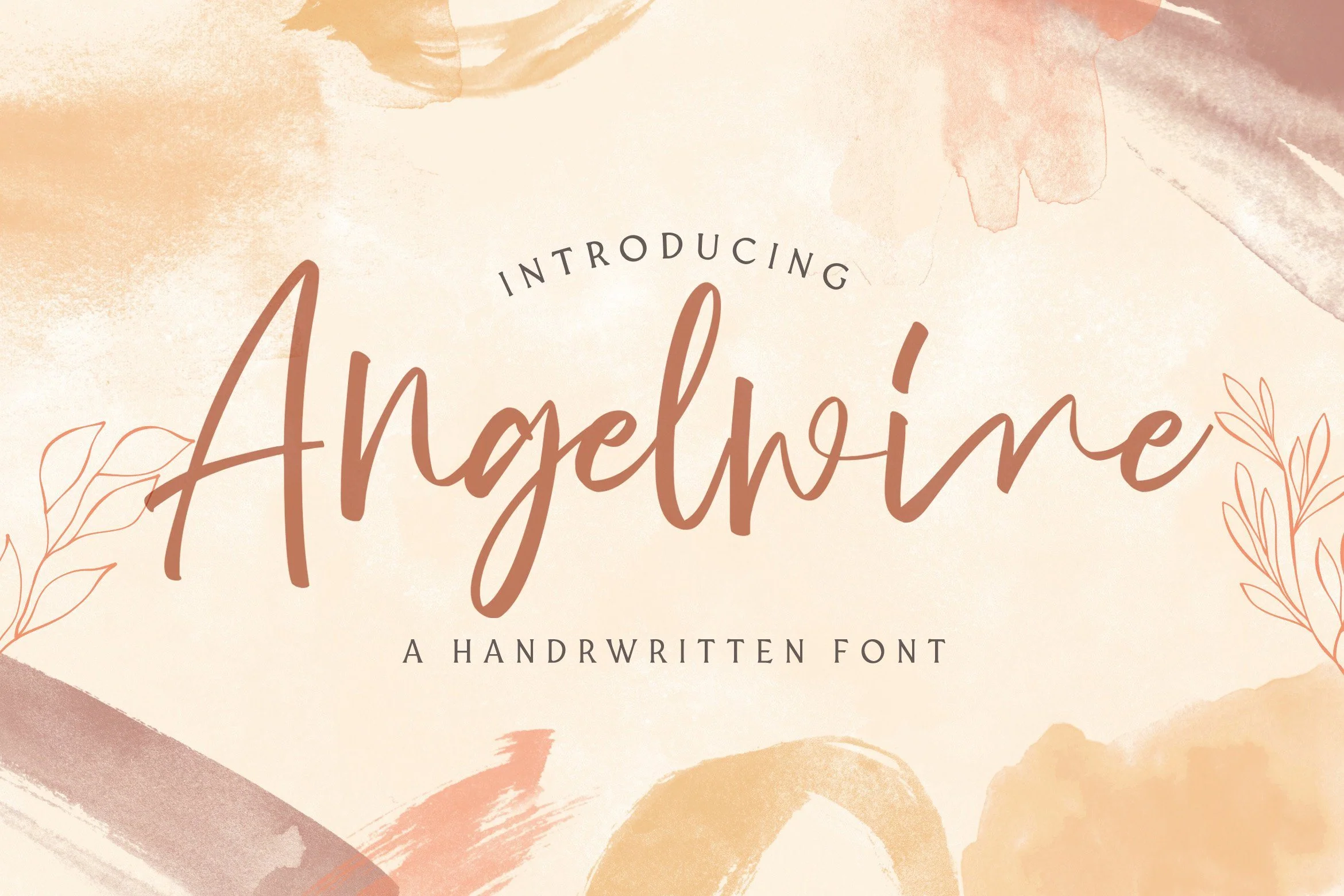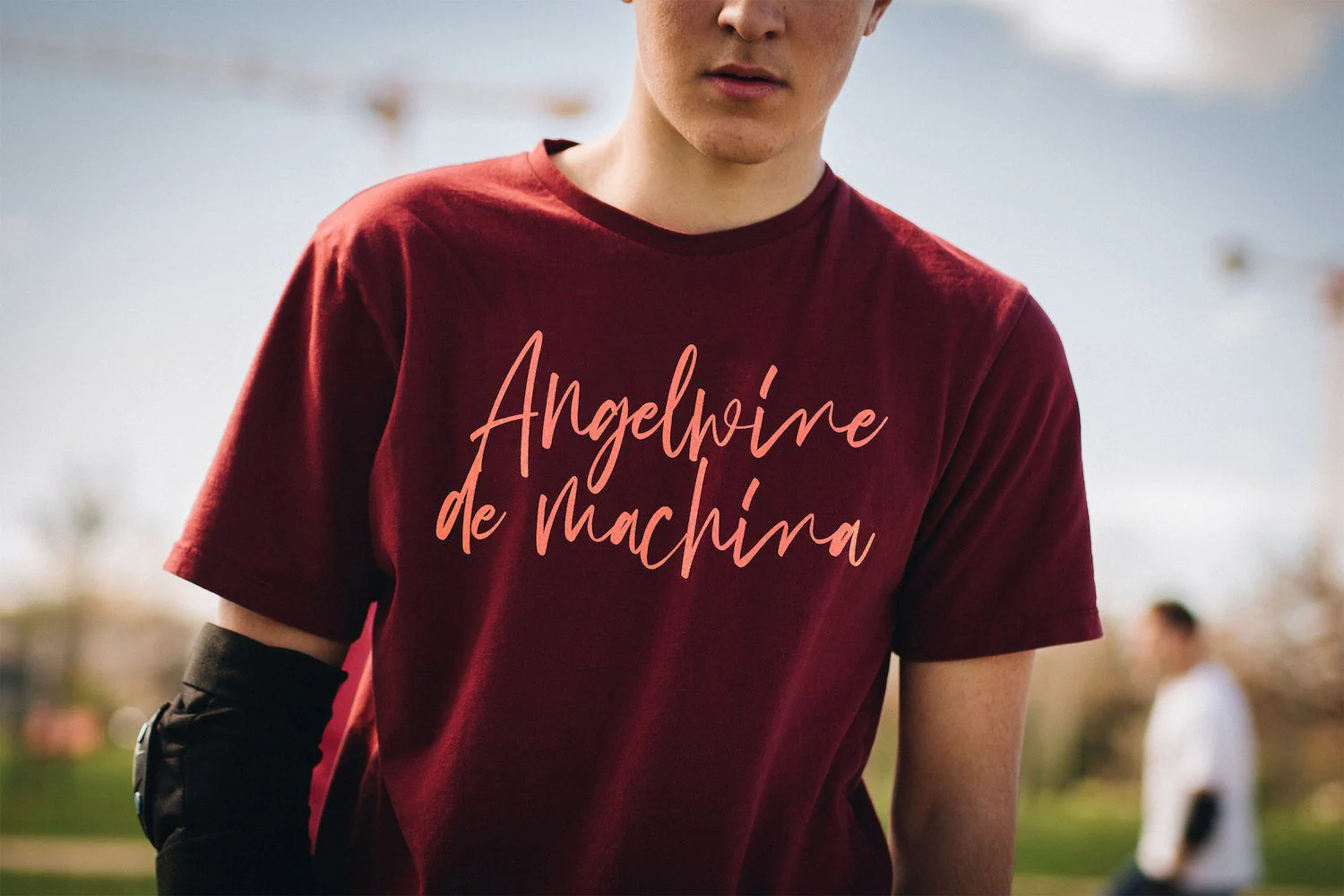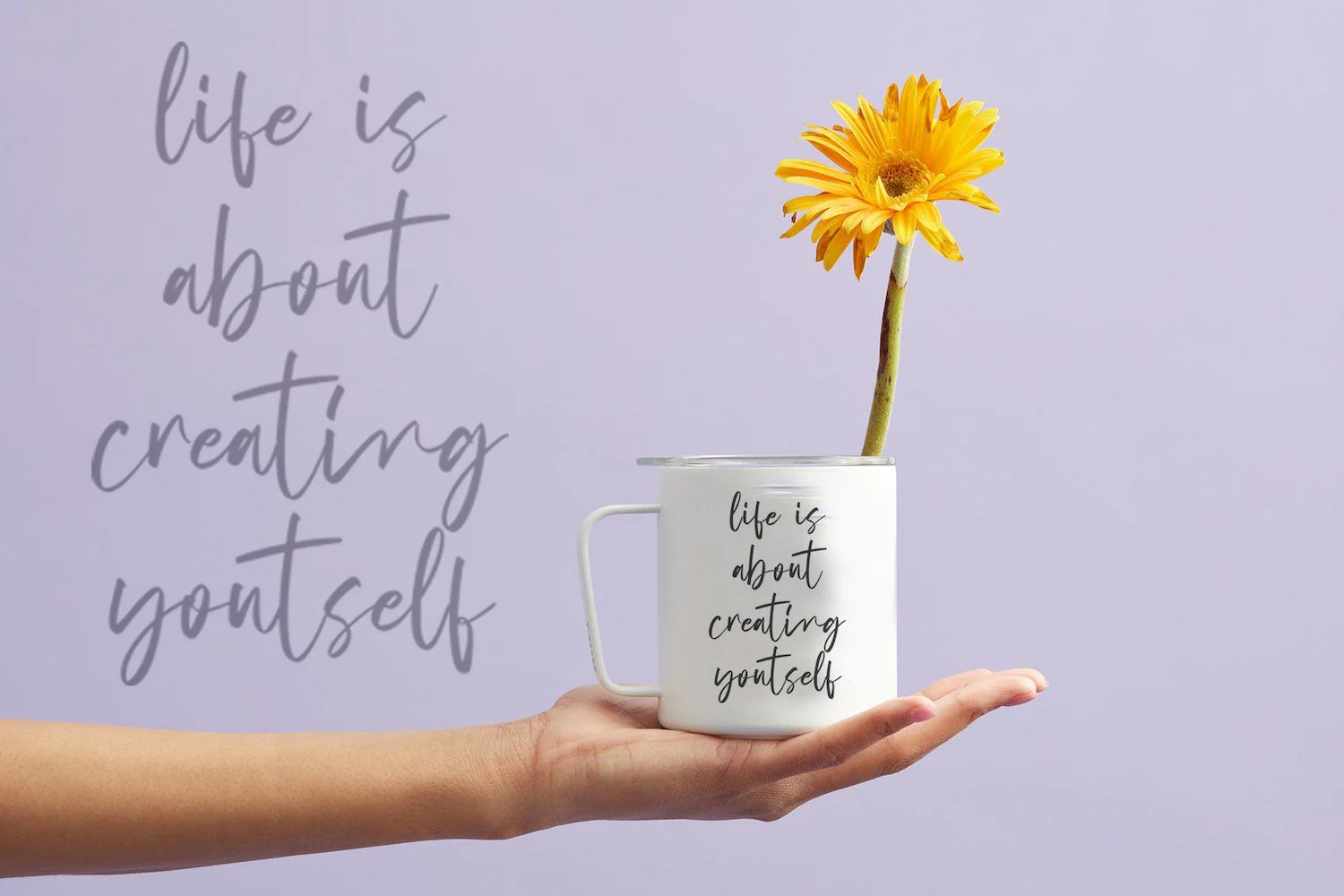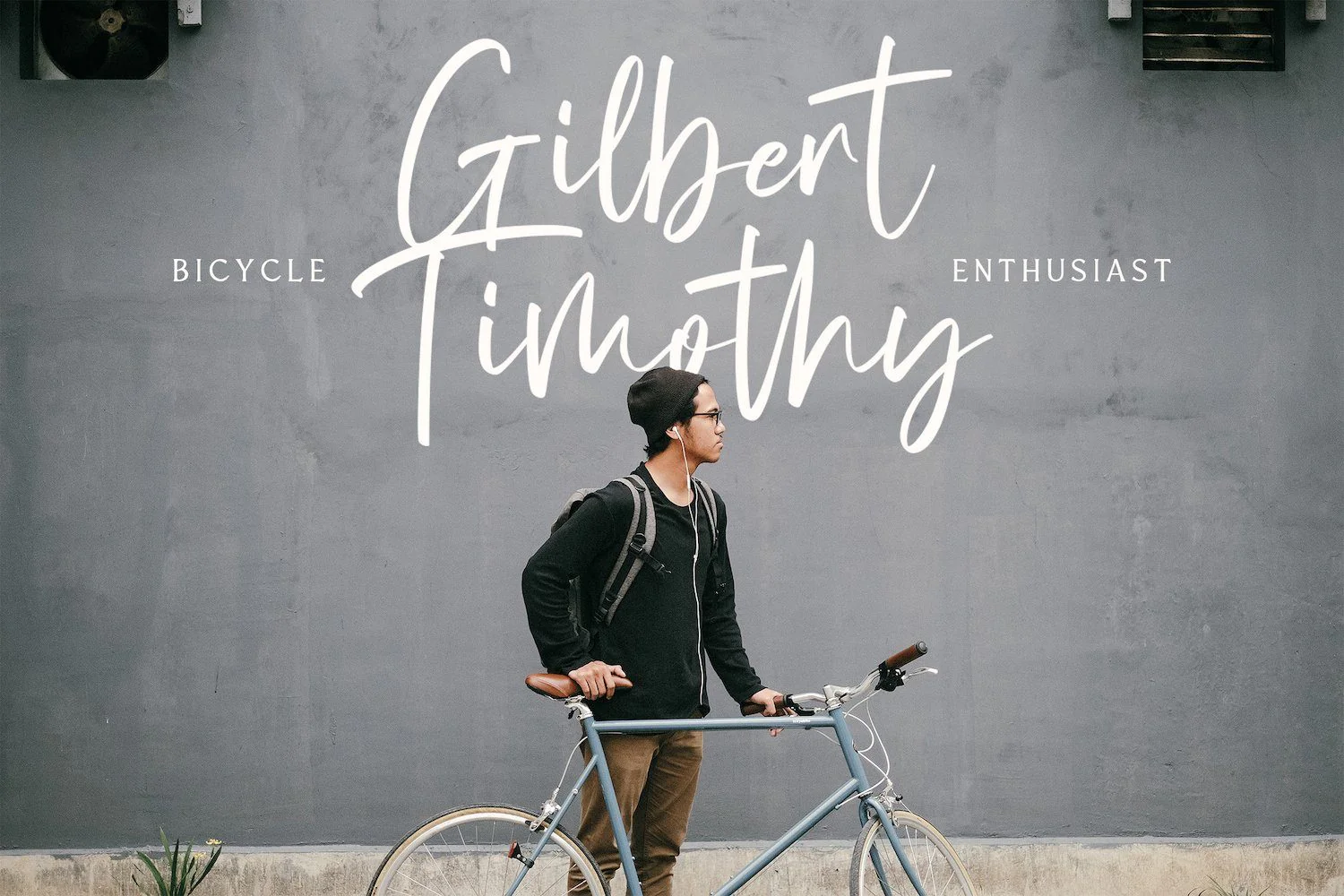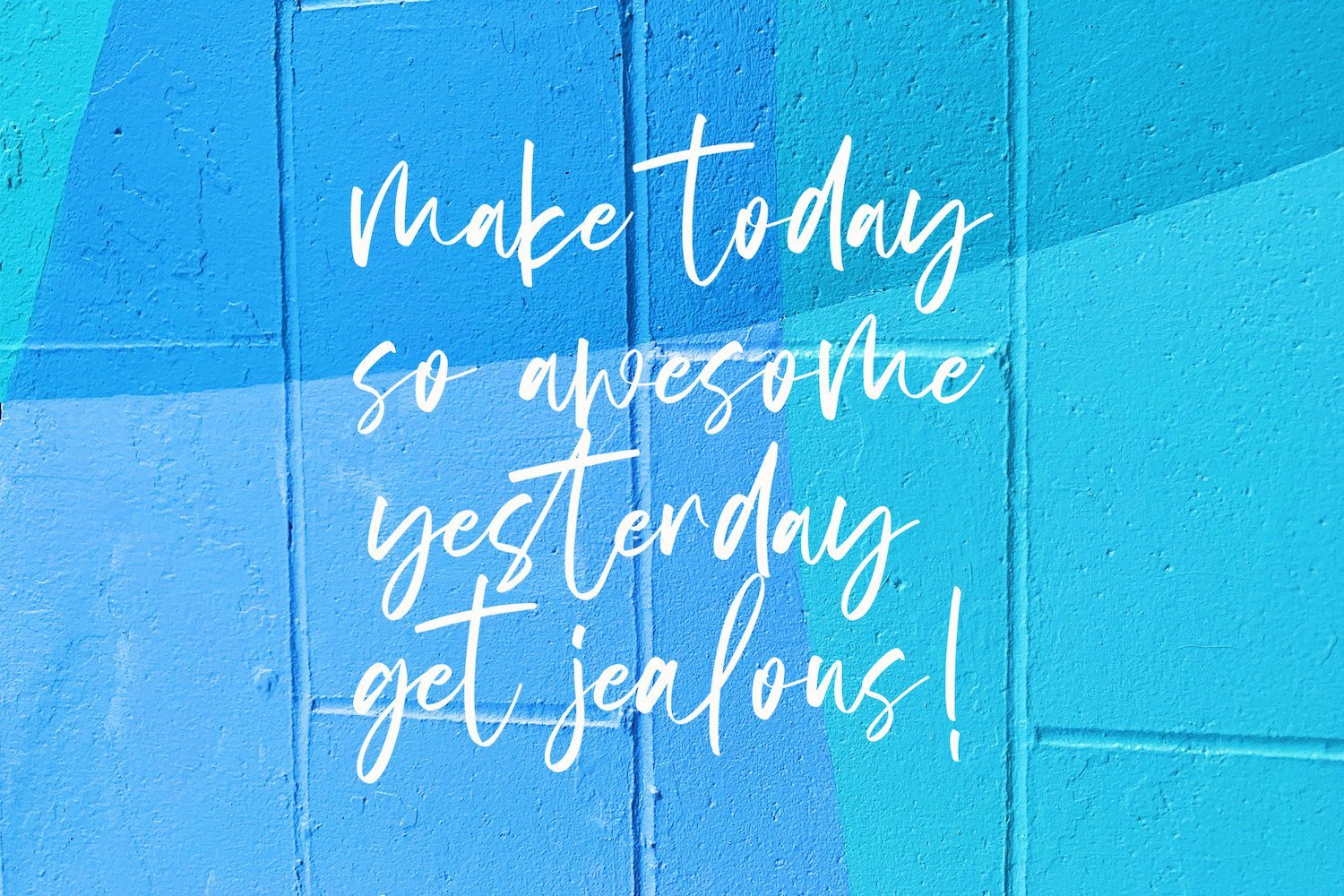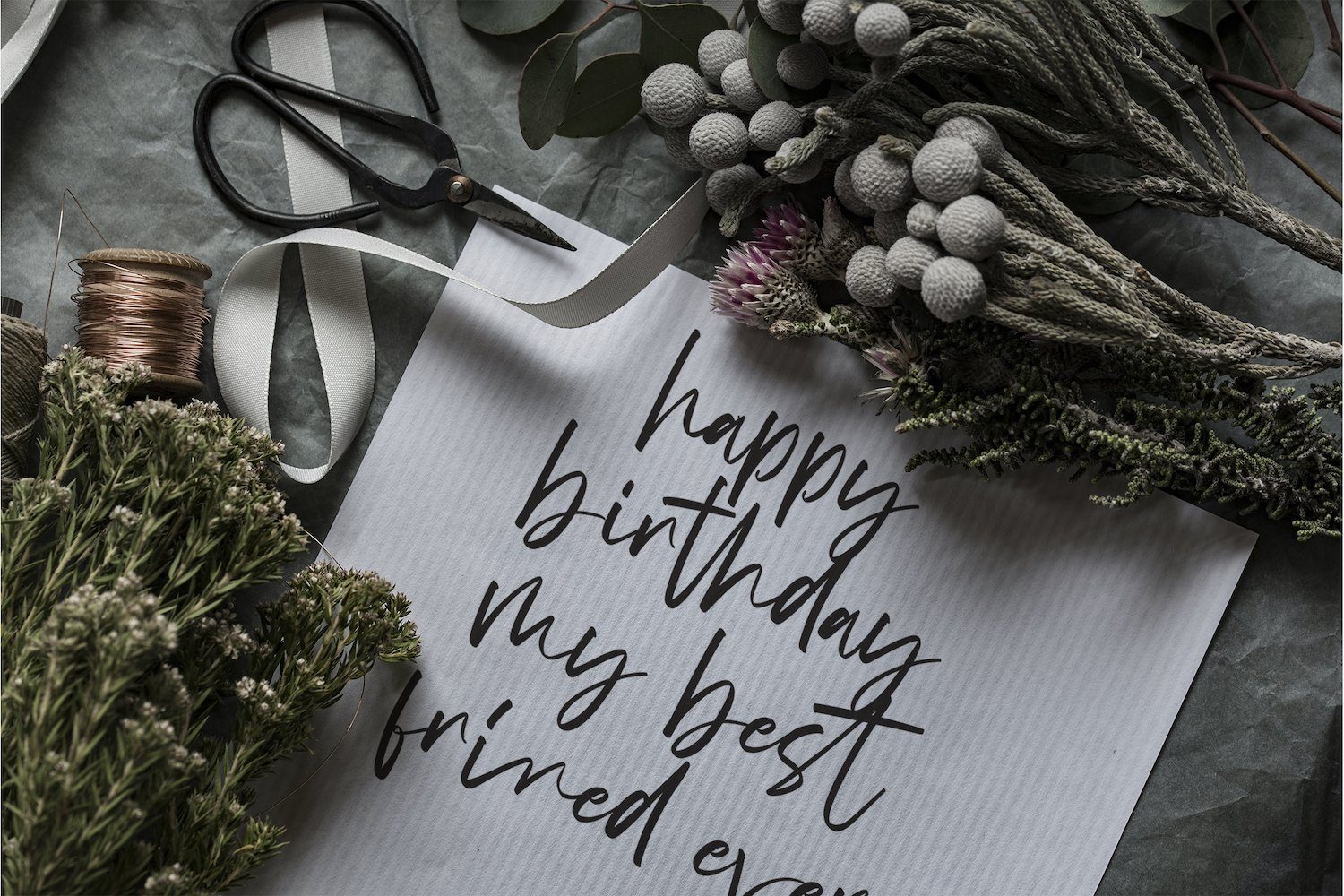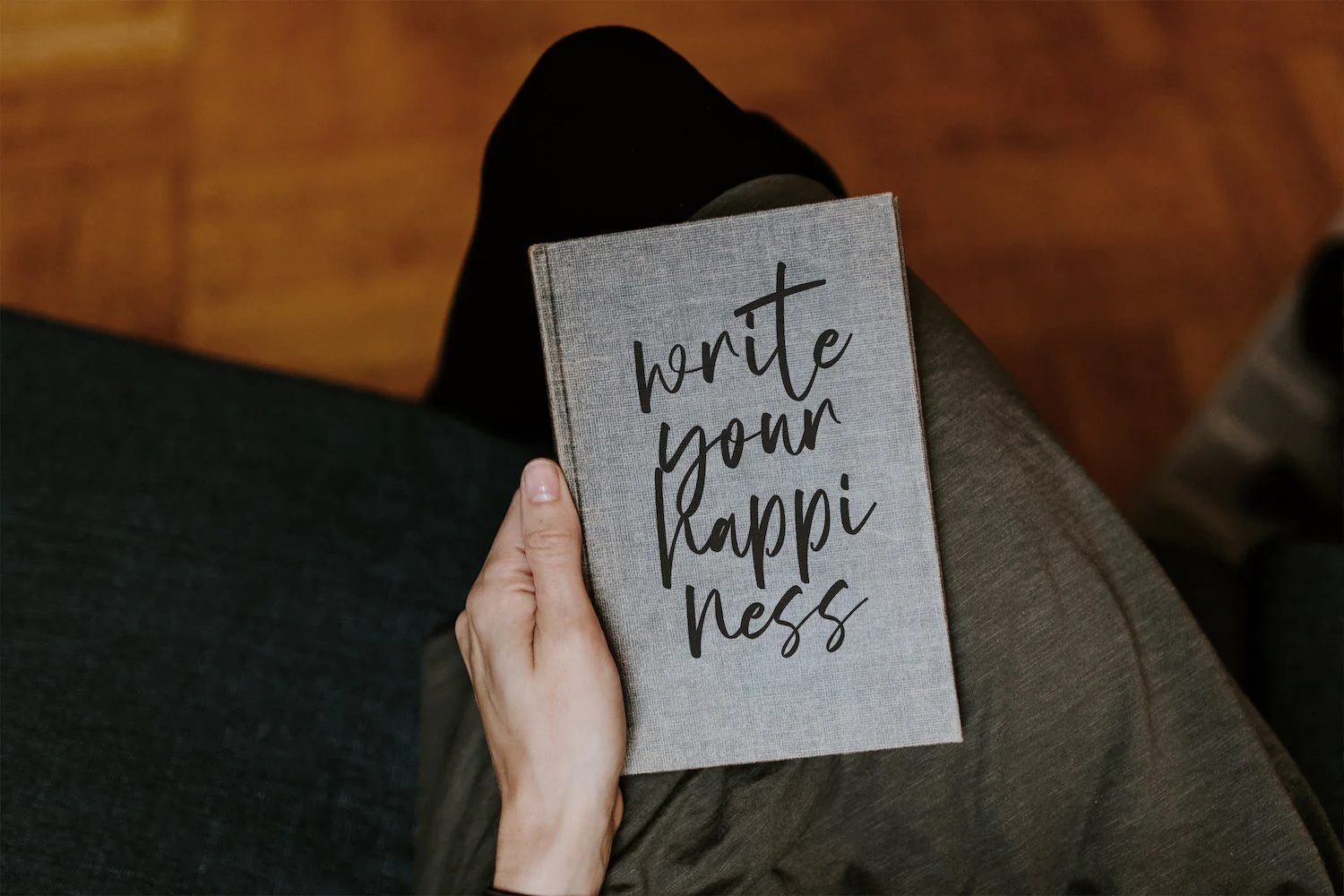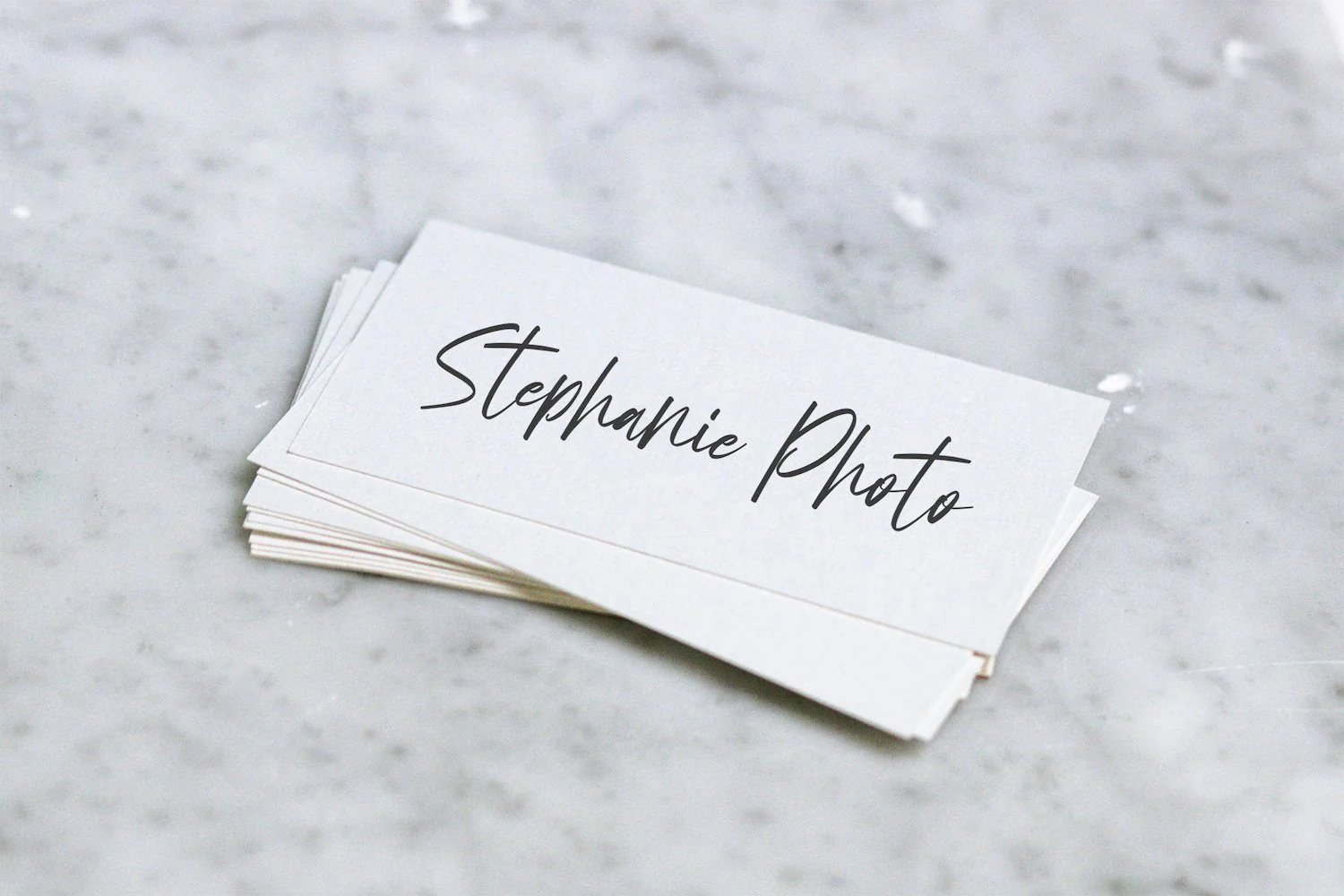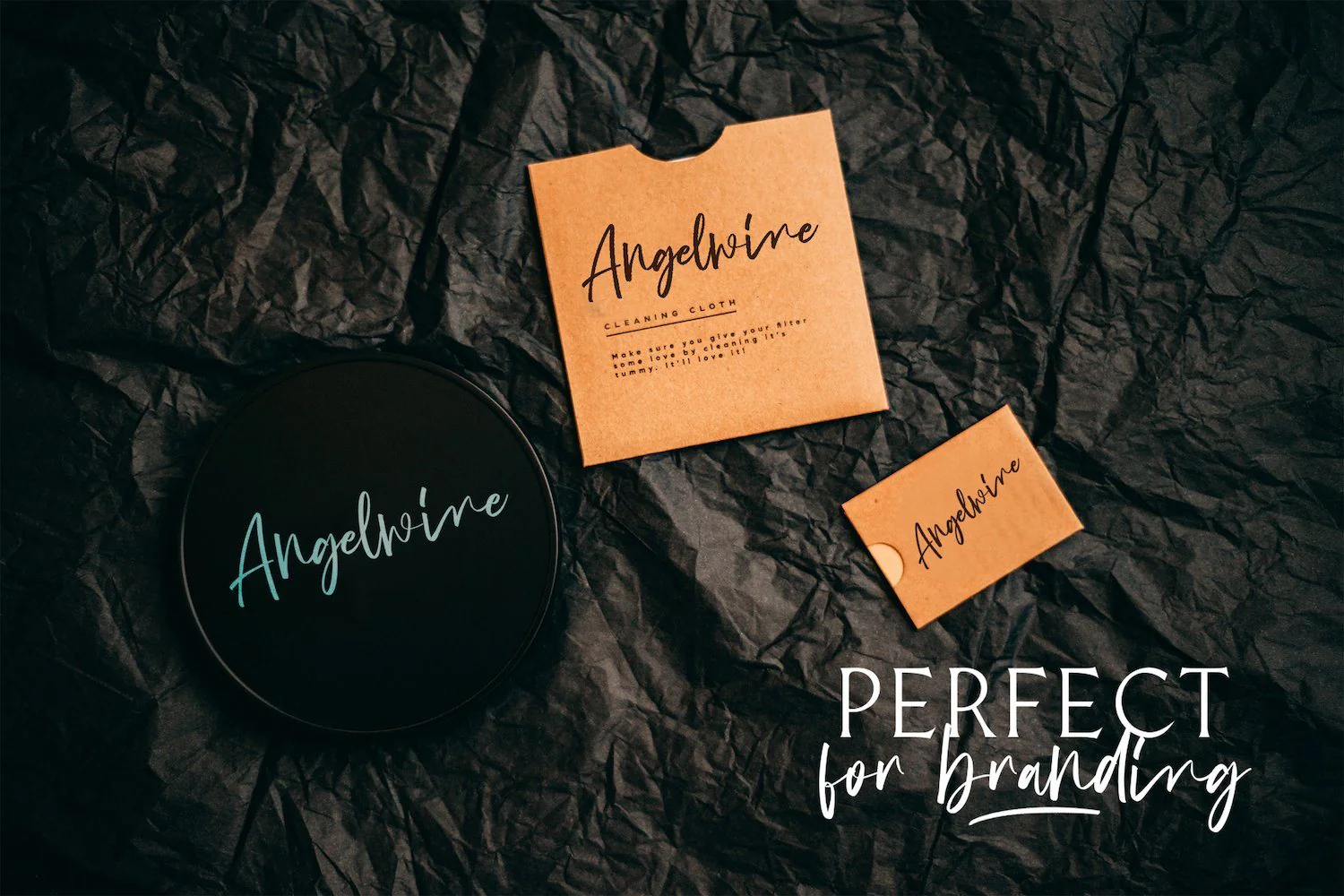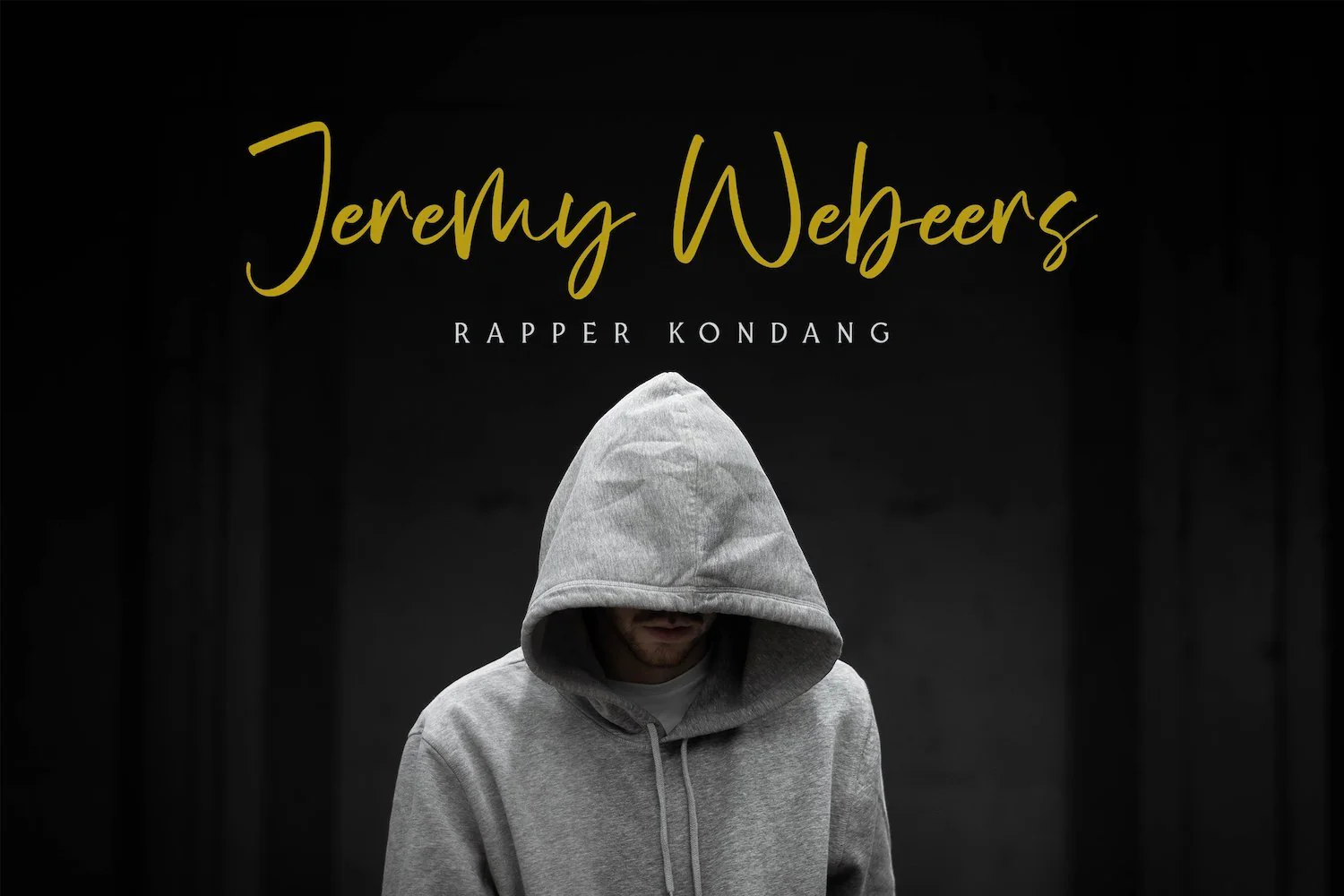
Angelwine - Handwritten Font
Introducing Angelwine - Handwritten Font
Angelwine is a Script Font with Handwritten Style. The Angelwine font made with digital brush pen strokes that making this font look authentic. This font is perfect for fashion brand, wedding invitation, business card, logo brand, signature, and then calligraphy.
This Font contains Classy, Elegant, Creative, Cool and has a Unique Concept.
Introducing Angelwine - Handwritten Font
Angelwine is a Script Font with Handwritten Style. The Angelwine font made with digital brush pen strokes that making this font look authentic. This font is perfect for fashion brand, wedding invitation, business card, logo brand, signature, and then calligraphy.
This Font contains Classy, Elegant, Creative, Cool and has a Unique Concept.